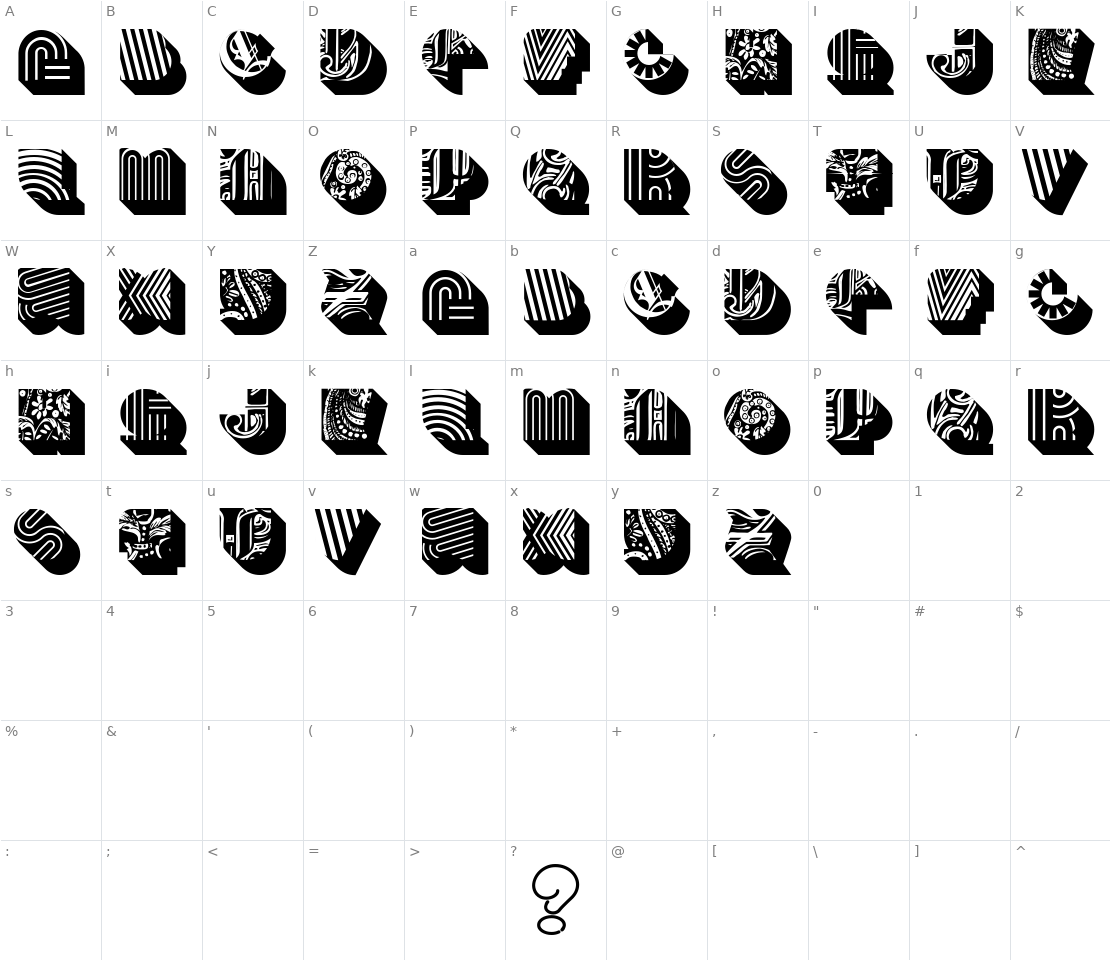
Bento
by Studio SomewhereElse
Bento is a bold decorative display face from Studio SomewhereElse with letterforms filled with intricate tribal-inspired patterns and ornamental detail. The ethnic motifs woven into each character give it a striking, almost textile-like quality that demands attention at large sizes. Built for posters, headlines, and cultural event branding where the patterning can read clearly and carry the design.